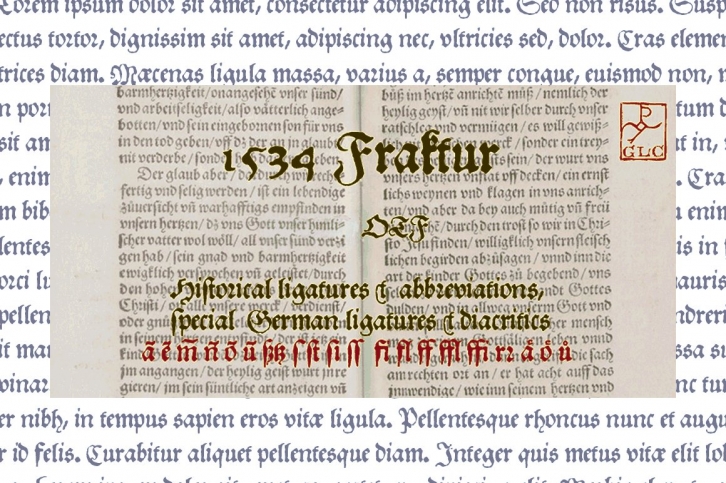
This font was created inspired from the early Fraktur style font used circa 1530 by Jacob Otther, printer in Strasbourg (Alsace-France) for German langage printed books. Although it is an early Fraktur pattern, it is easy to see the characteristic differences with the Schwabacher style, like in the small d,o or y... and the capitals (look at the H, K, T...) Frequently, Schwabacher and Fraktur were used together in the same book : Fraktur style for the main and Schwabacher for marginalia and comments. This font contains standard ligatures and German historical ligatures ( german double s, long s, ts...) and diacritics (special ummlaut "e superscript" and "∞" unstead of dieresis with letters a, o and u,) naturelly, we have added numerous letters lacking in the original to permit a contemporary use of the font